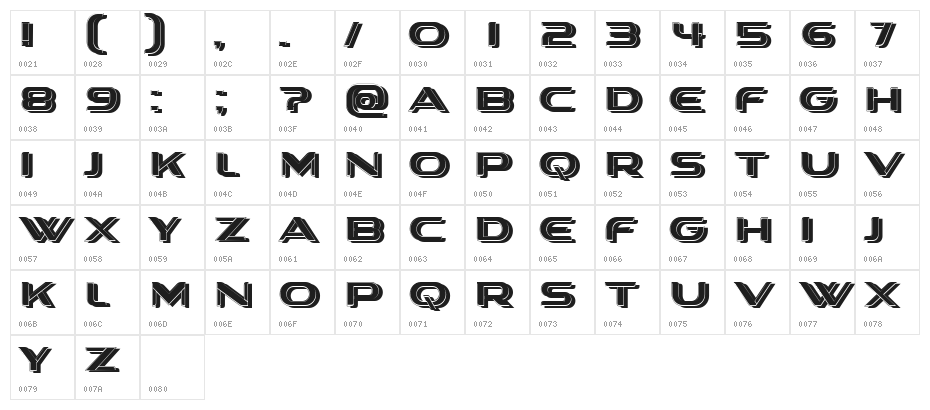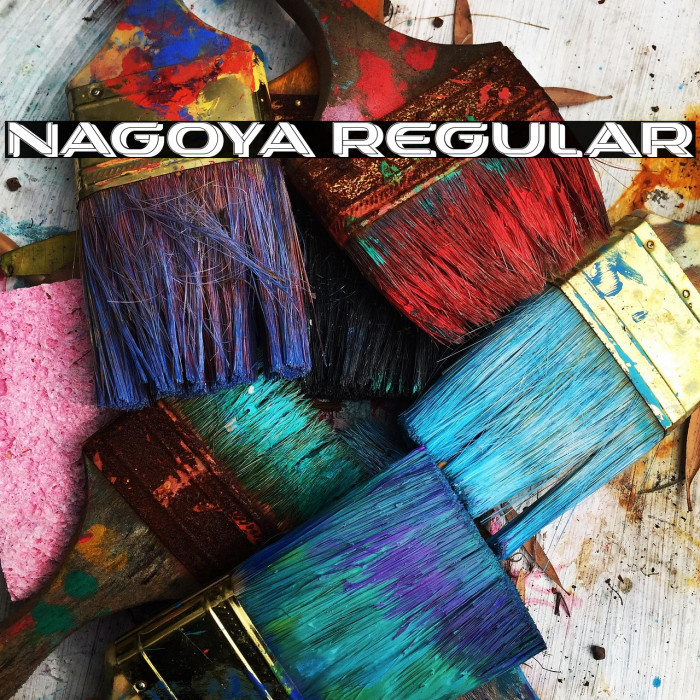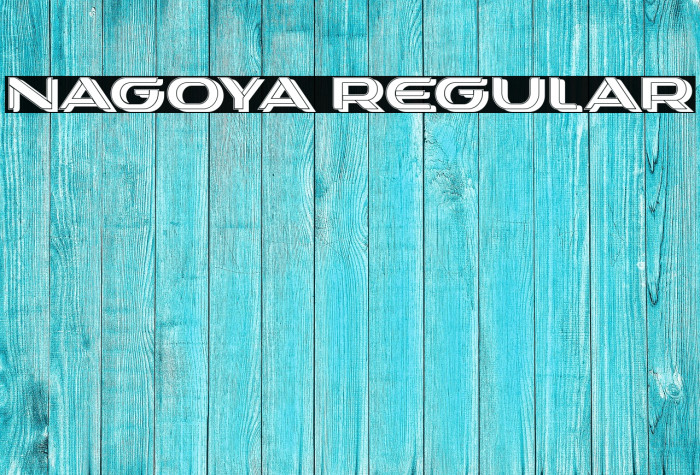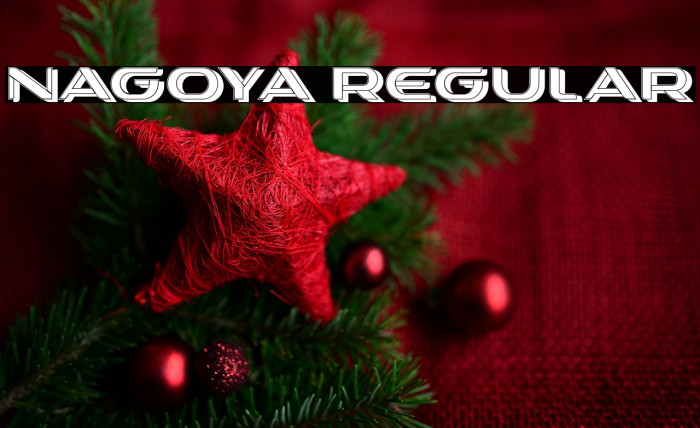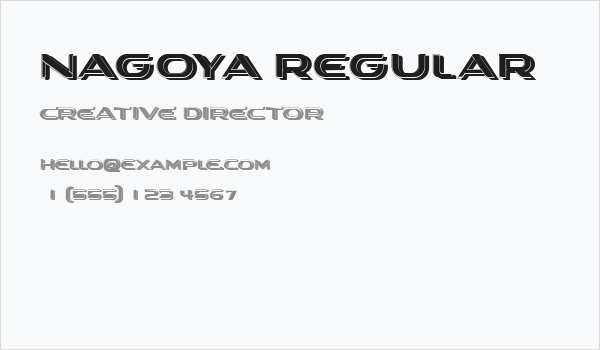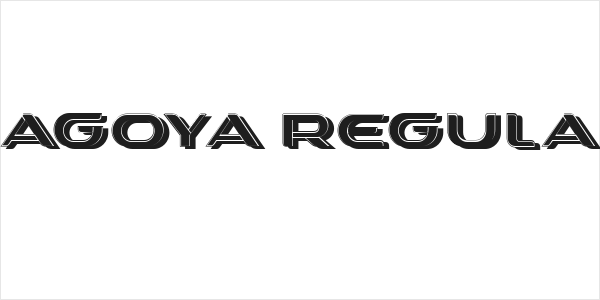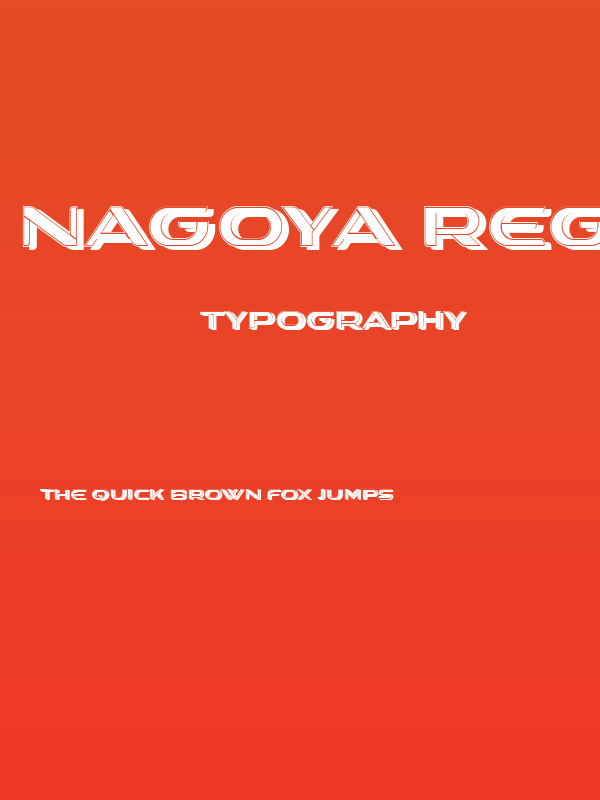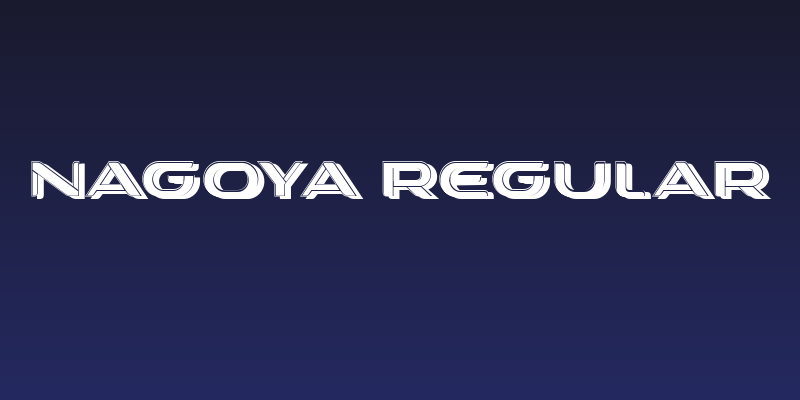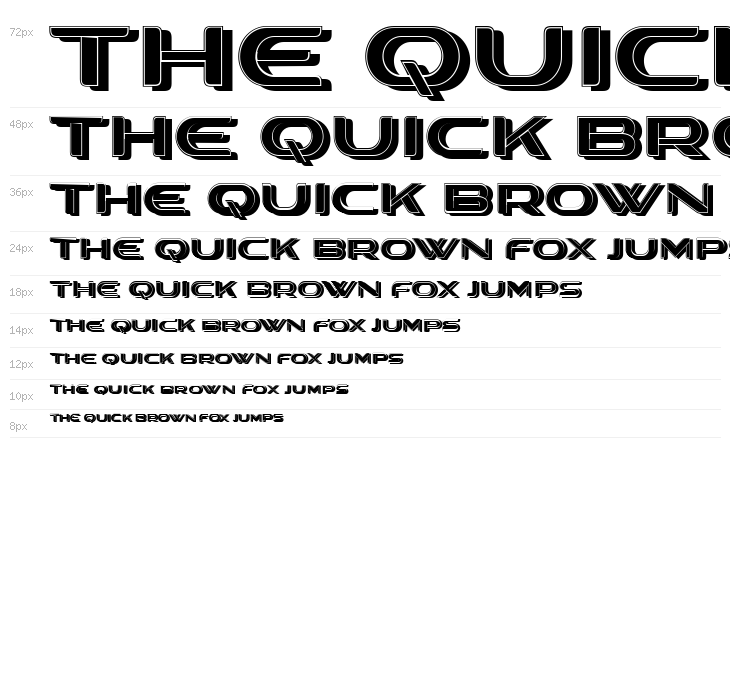
Nagoya Regular Font
Nagoya Regular Description
This font features a bold, futuristic design with a strong geometric influence. The characters are constructed with sharp angles and clean lines, giving it a modern and dynamic appearance. The font has a distinct three-dimensional effect, achieved through the use of shadowing and layering, which adds depth and visual interest. The uppercase and lowercase letters maintain a consistent style, while the numerals and special characters complement the overall design. This font is ideal for projects that require a bold and impactful visual statement.
| Proposed Projects | Ideal for technology branding, video game titles, sci-fi movie posters, and modern advertising campaigns. |